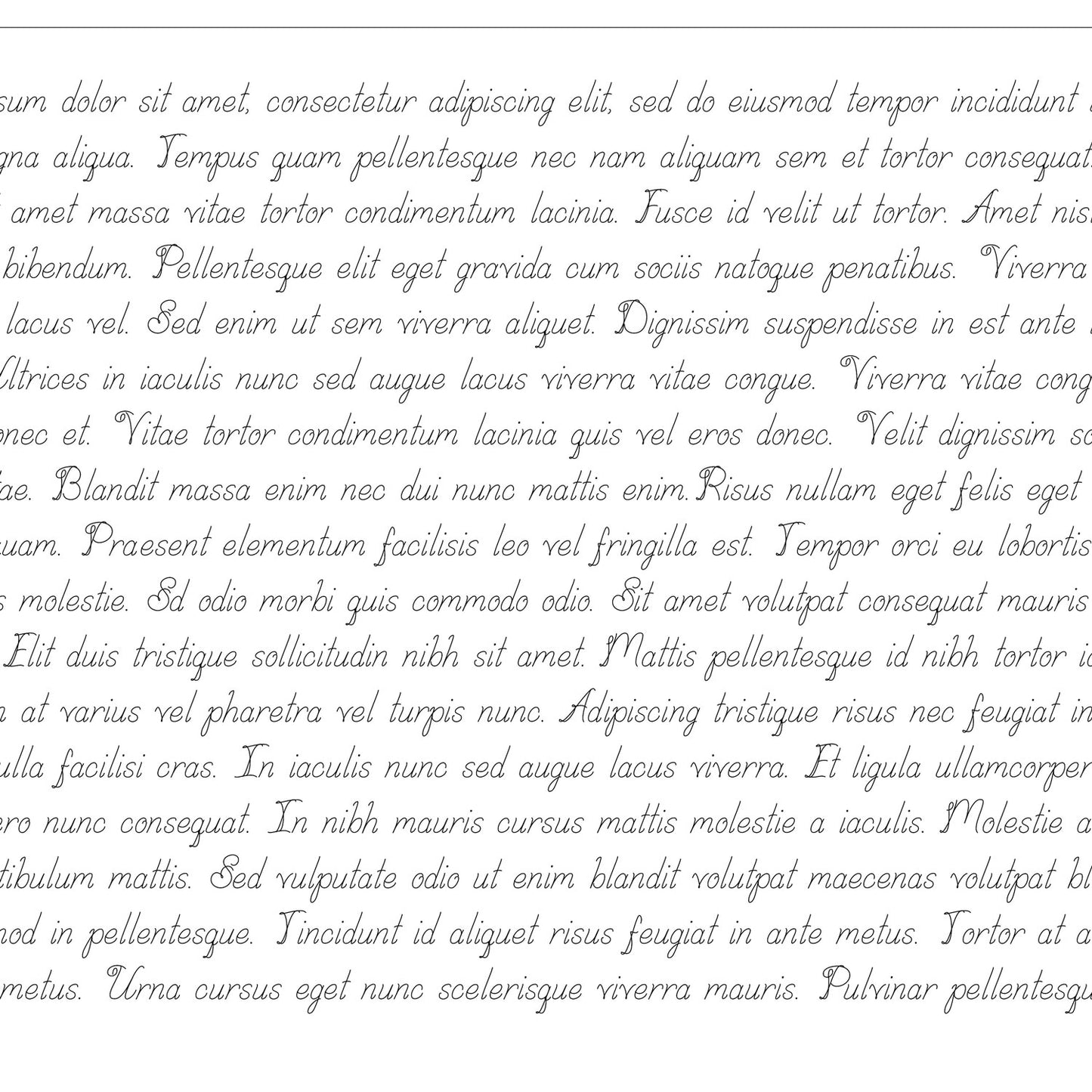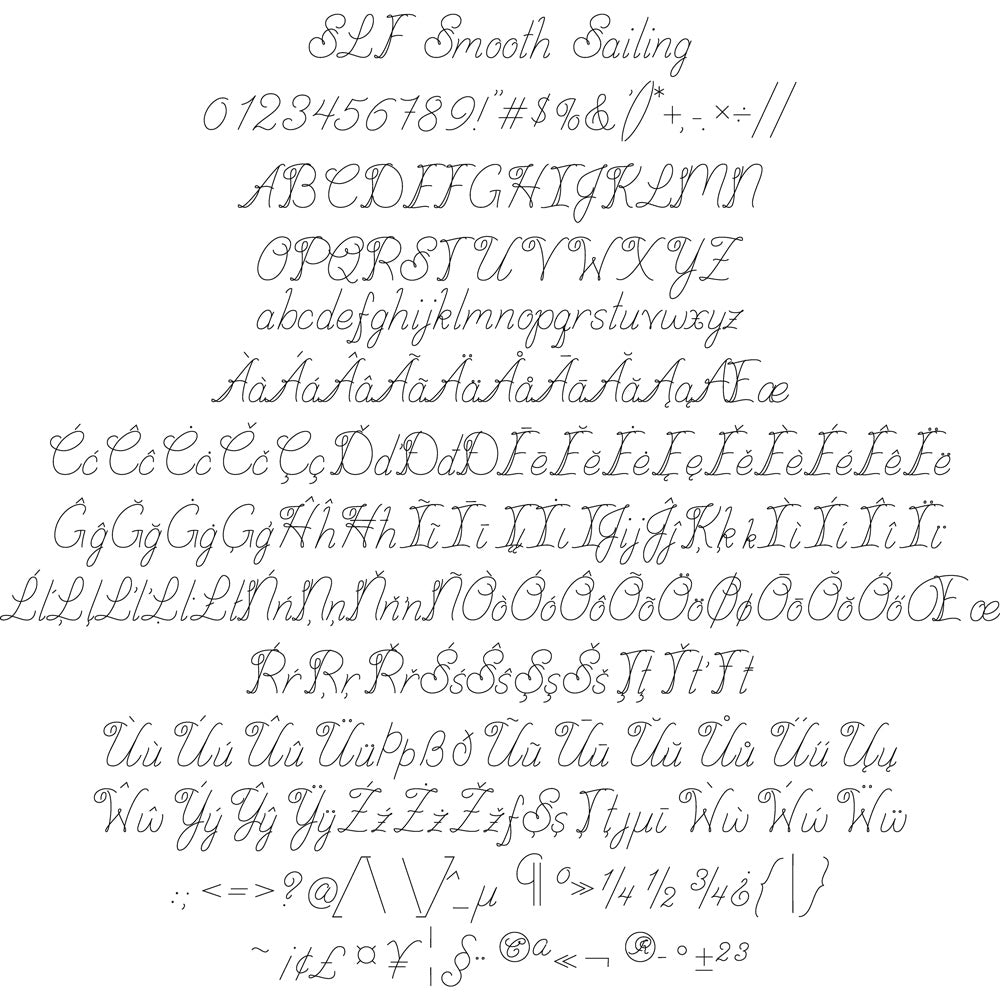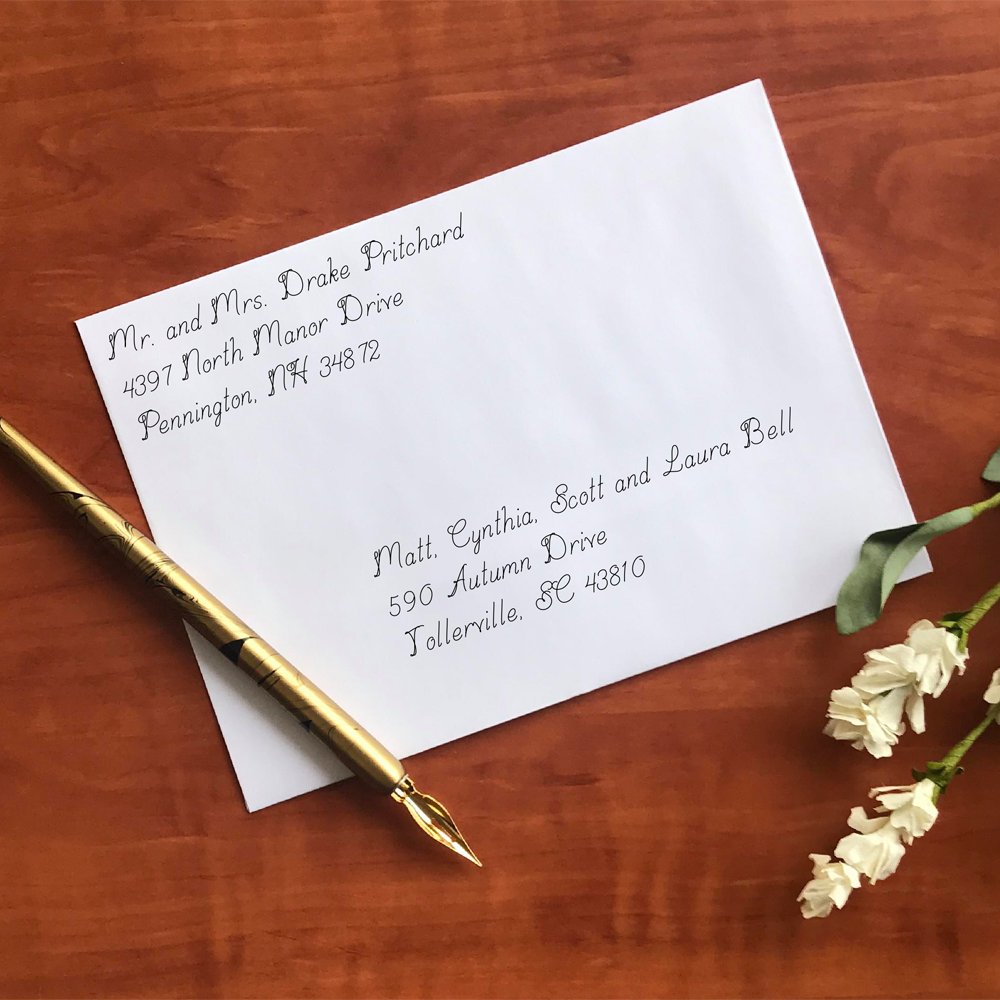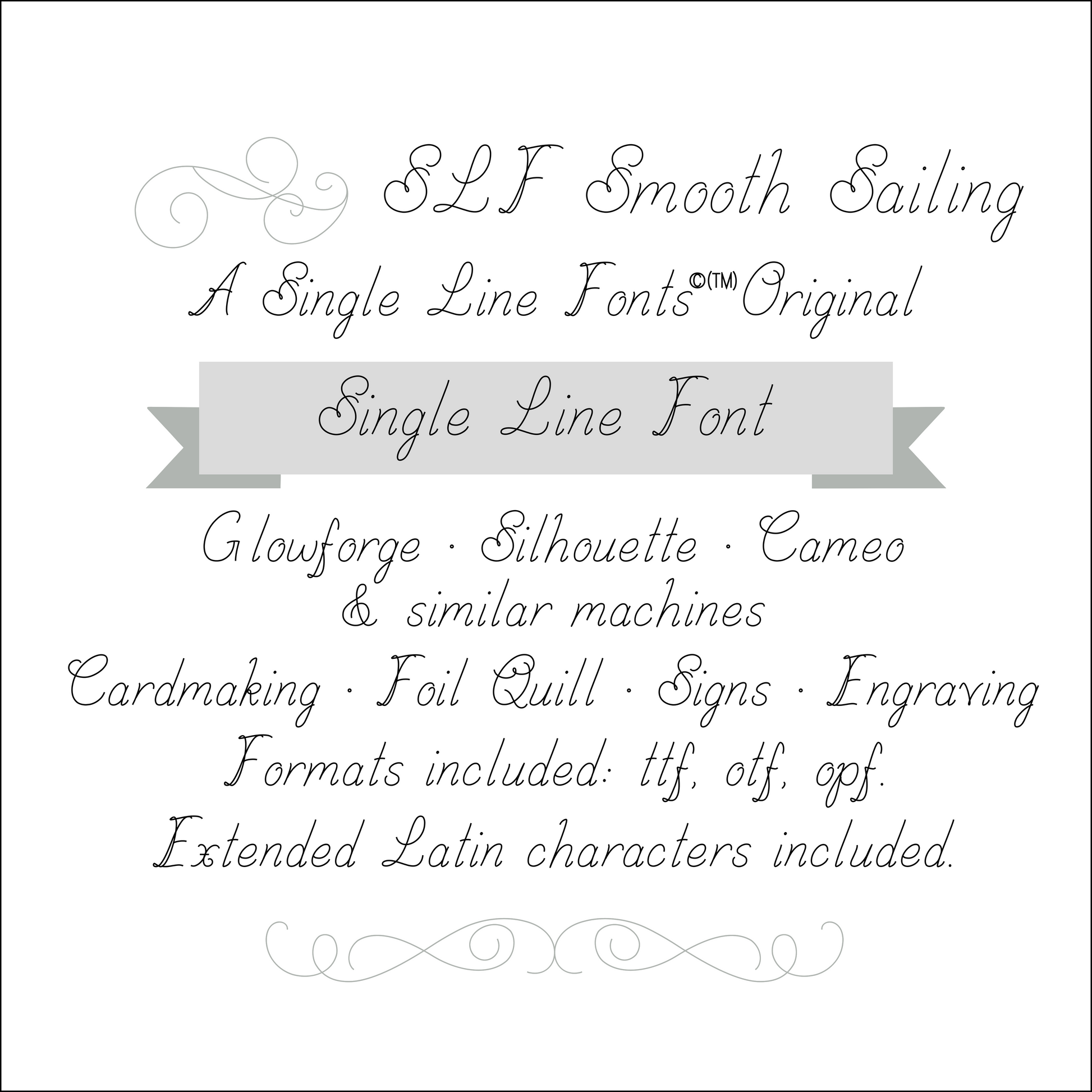
SLF Smooth Sailing – Relaxed Single Line Print Font for Crafting & Engraving
SLF Smooth Sailing is an elegant single line print font with smooth rounded strokes and a relaxed, breezy feel. Its easy-to-read letterforms work beautifully for engraving, scoring, sketch pen tools, CNC routing, and creative craft projects. Use it for signage, cards, labels, nautical designs, and personalized creations.
This monoline font includes a complete character set with uppercase and lowercase letters, numbers, punctuation, symbols, and accented characters for multilingual support.